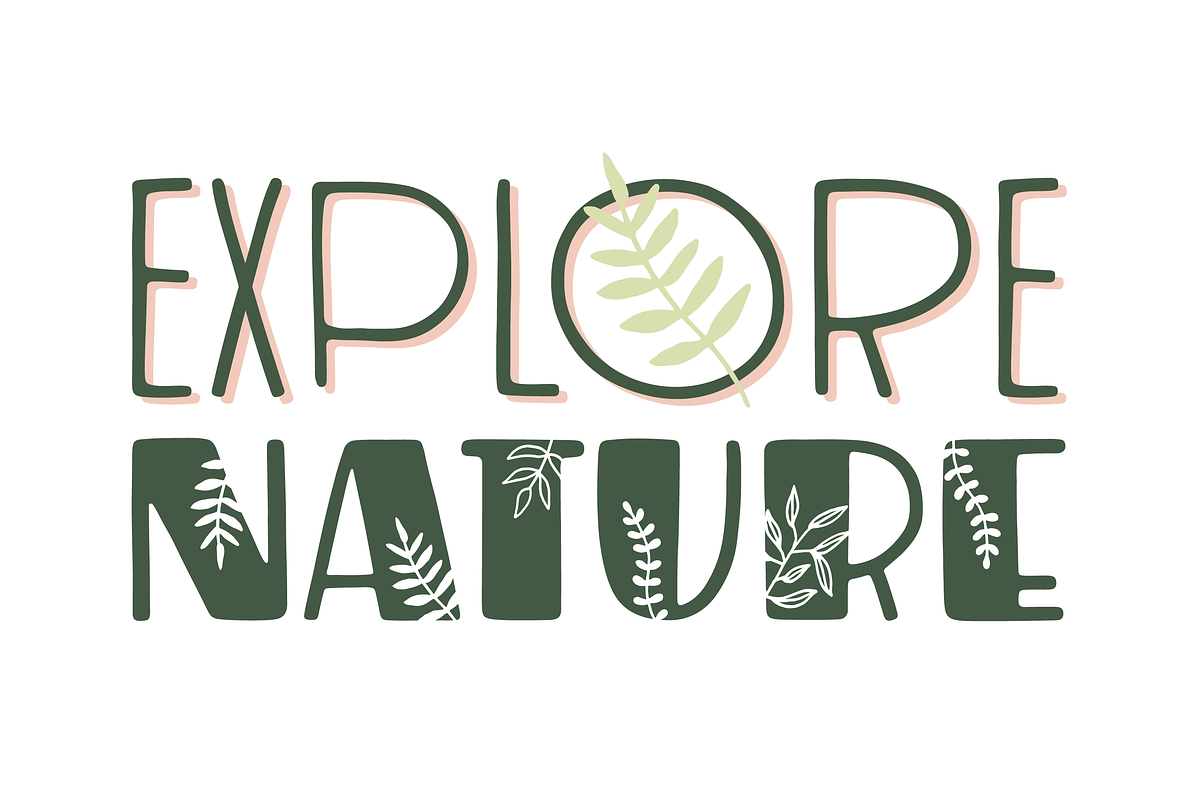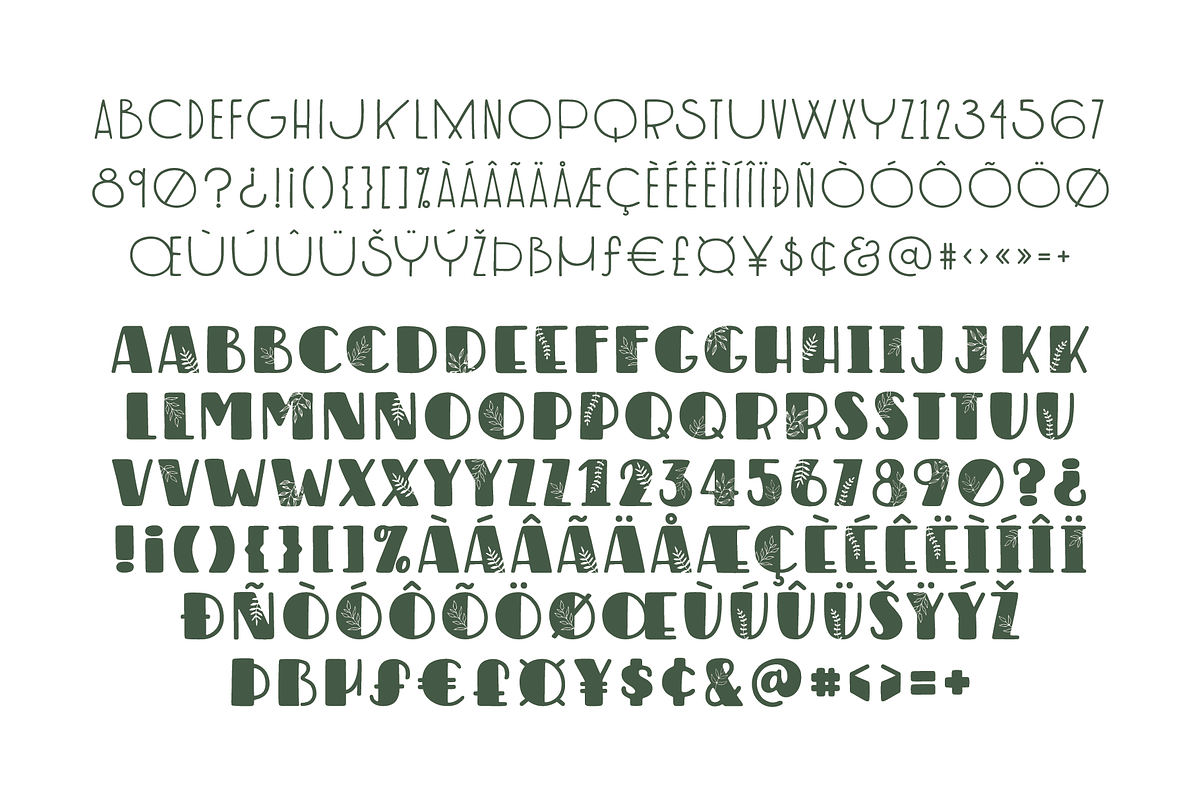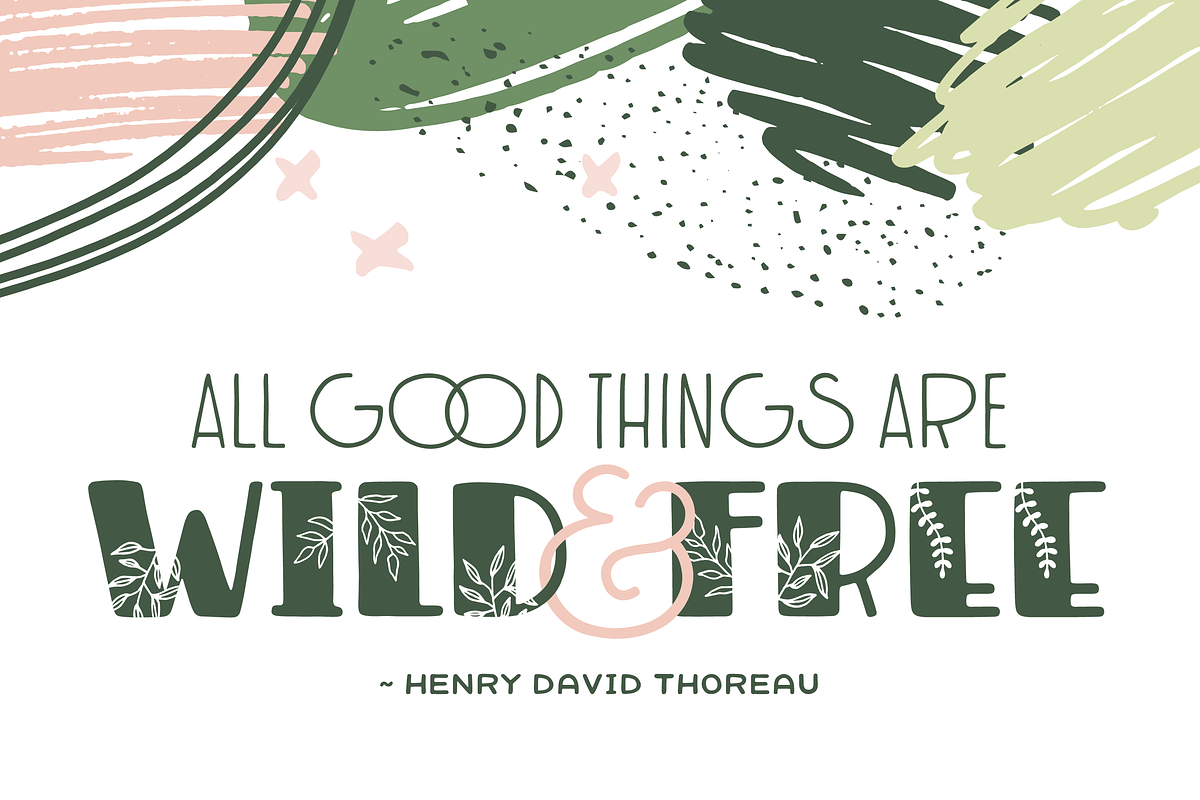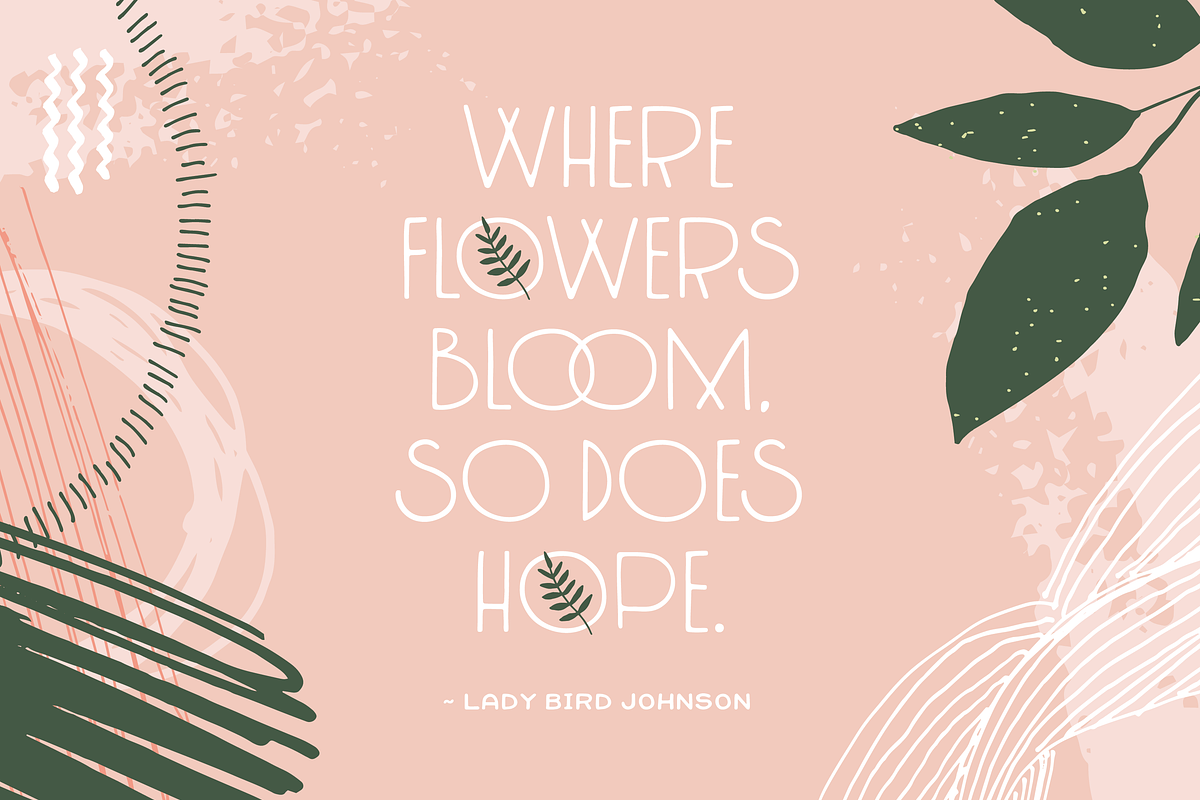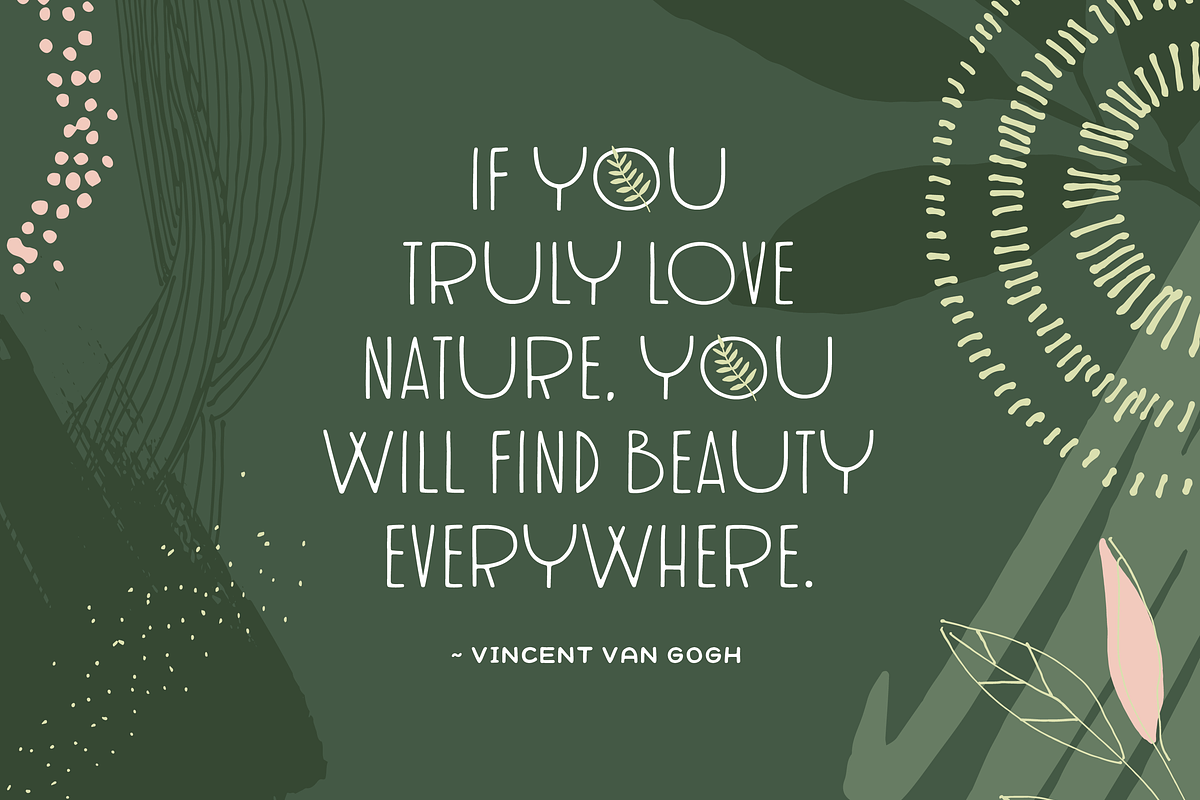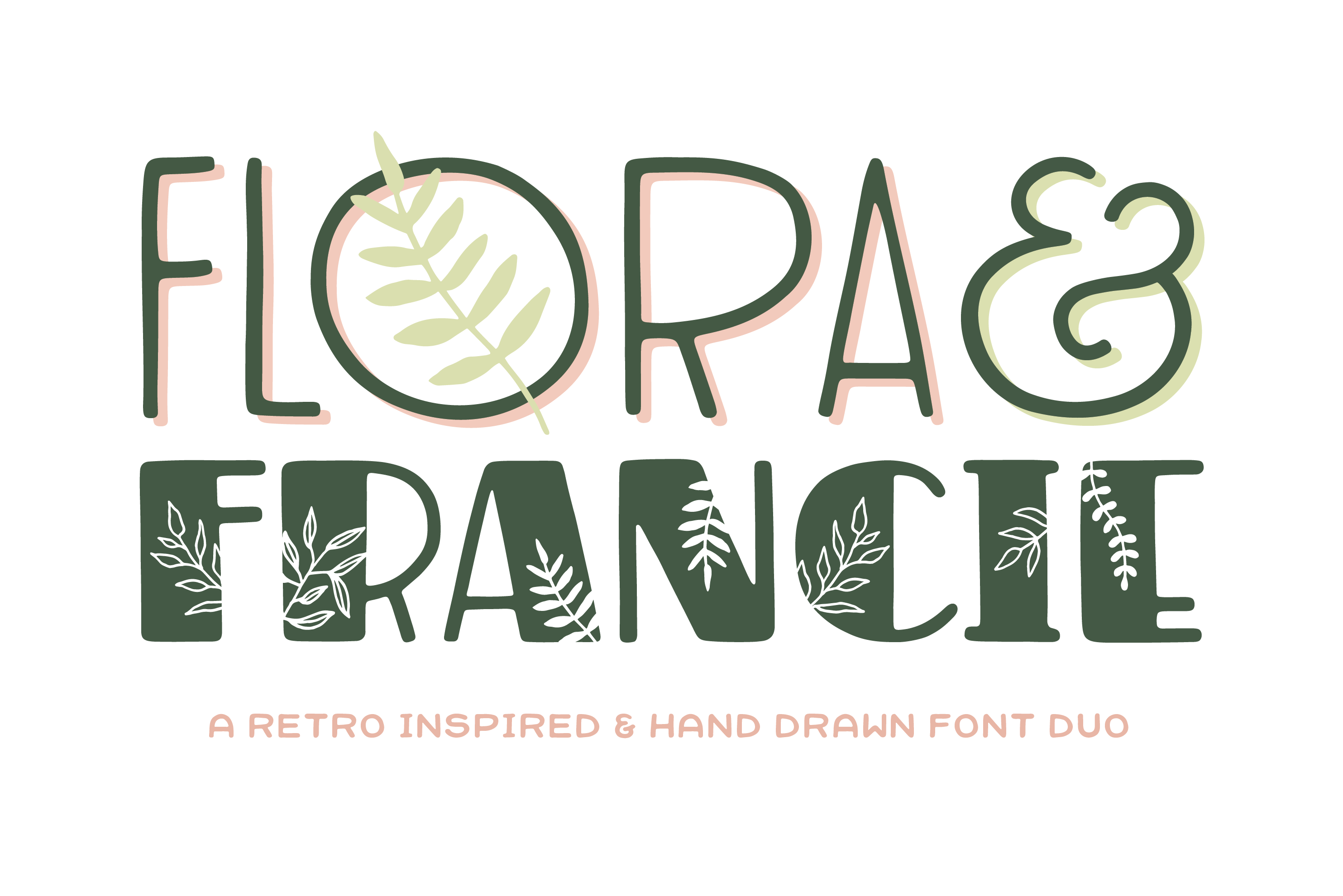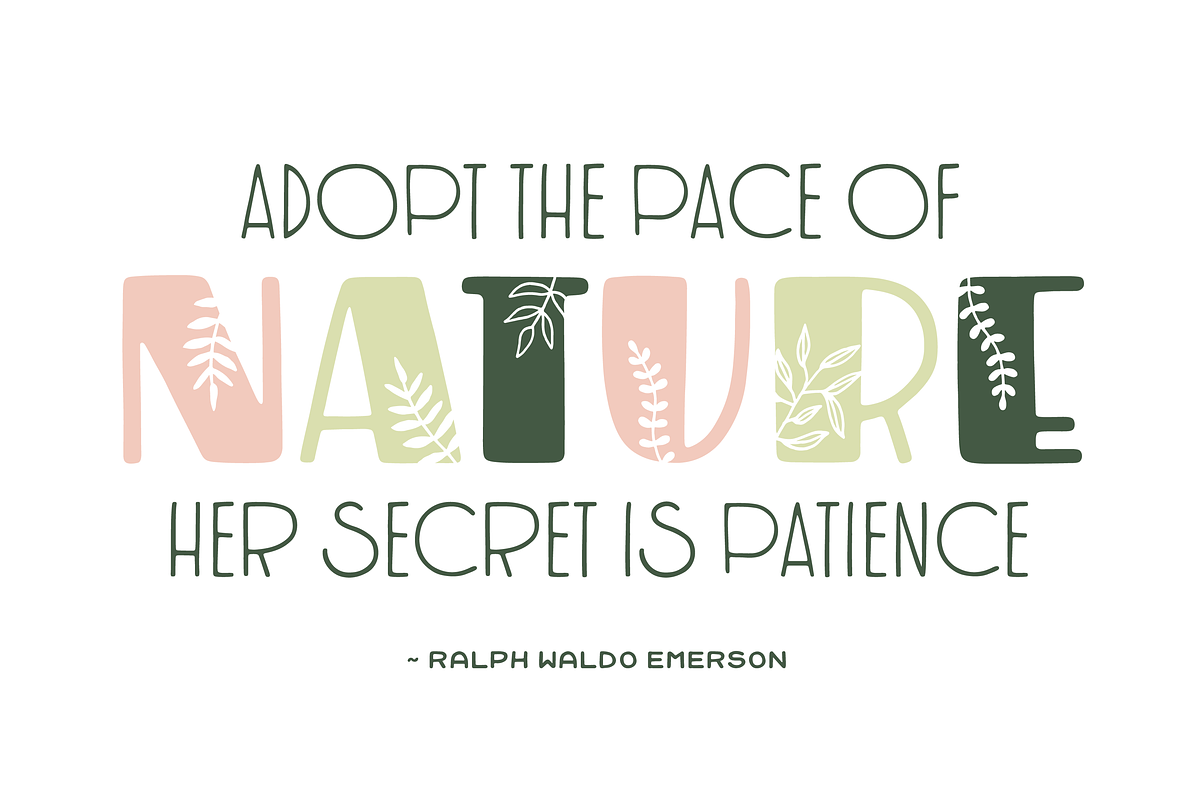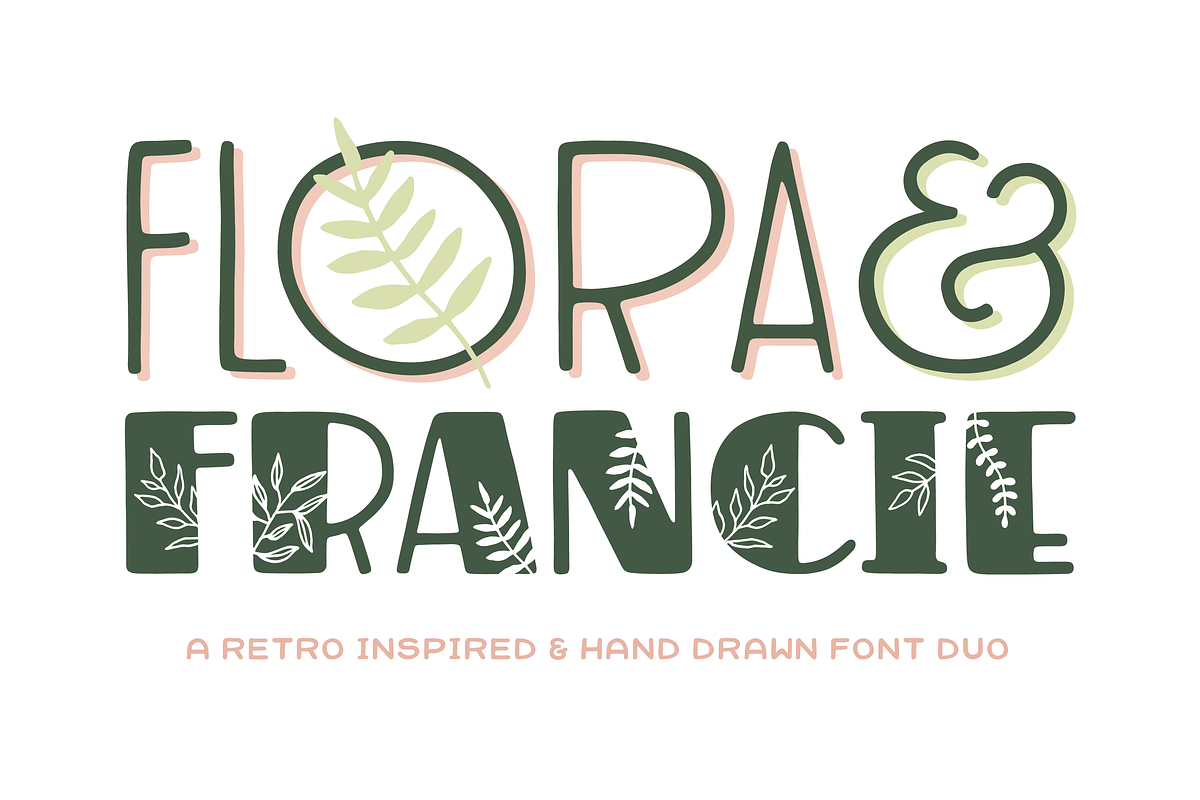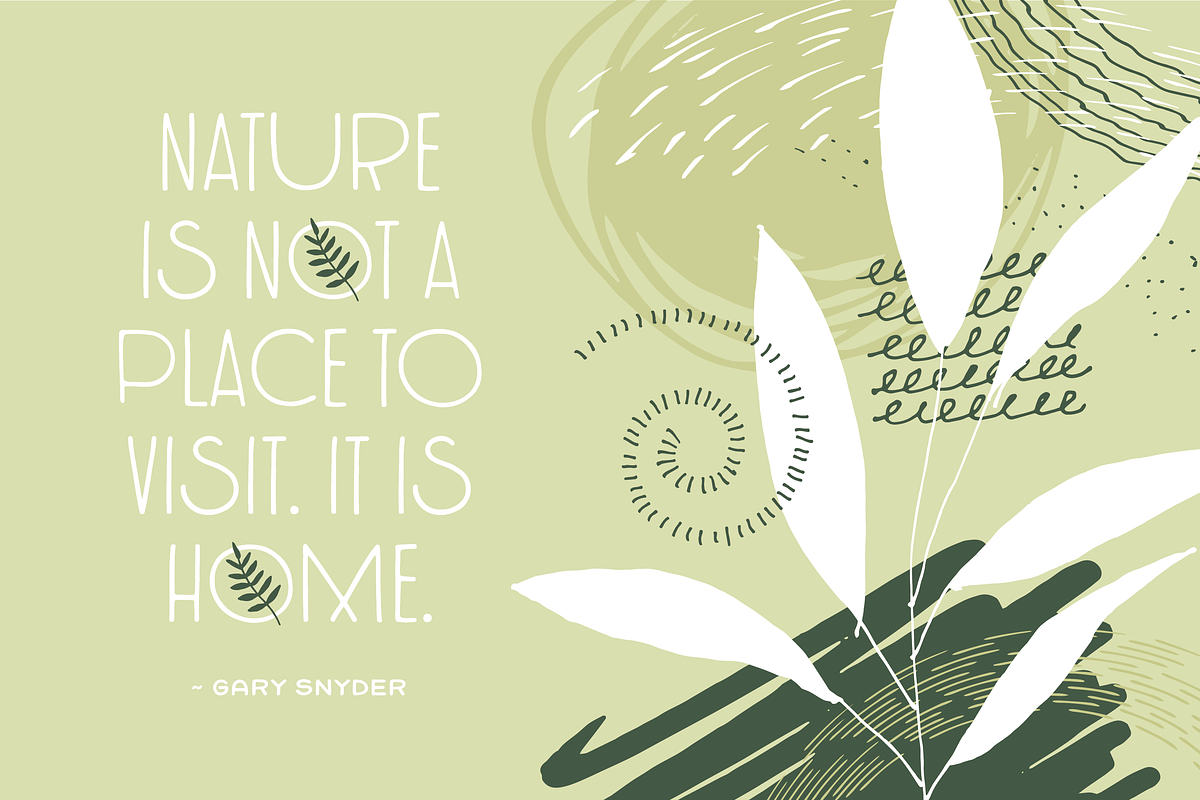
Flora & Francie Font Duo
Flora & Francie is an all-caps, retro inspired duo. The thick and thin fonts provide a beautiful contrast that will make any typography stand out.